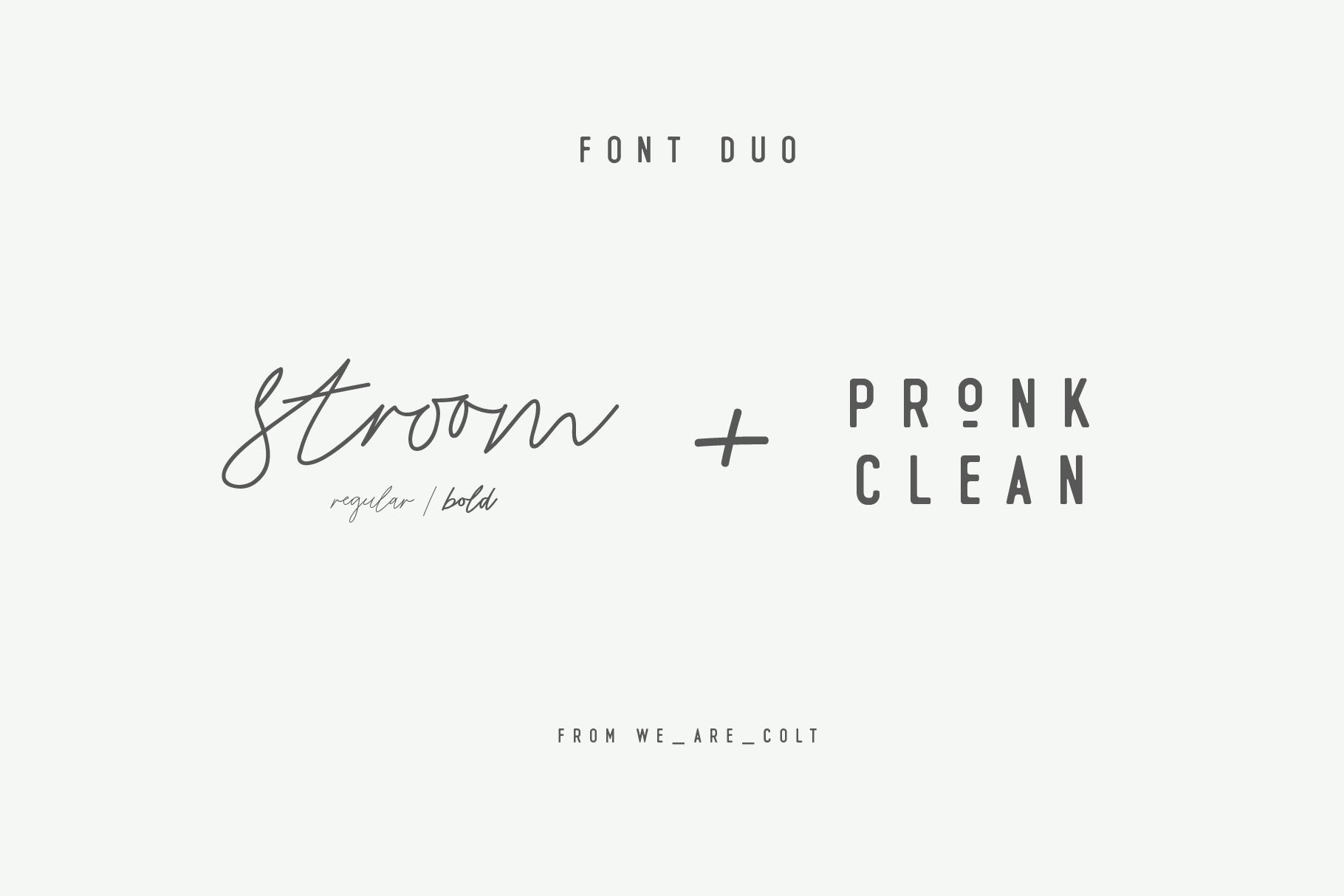
Stroom & Pronk Font Duo
Introducing the Stroom & Pronk font duo The perfect combination of flowing script and a tall, bold display font.
This is an all caps, tall, bold and round sans serif display font designed for retro-modern designs. This font is perfect for your next logo design or magazine titles.
Taking inspiration from many tall fonts and American number plates I created a display font that would be my 'go-to' for a neat tall, bold font. I also wanted something which would take a good amount of treatment like stamp effects and grunge.
Pronk works brilliantly as a pegboard font and for neon lettering.
Stroom was created from a natural handwritten script which makes for a great display font with a natural flow. Complete with hand-drawn glyphs and custom linked letters for a unique marker pen look. This is your perfect font for magazine titling, logo marks, signatures, invitations, cards, Instagram posts, and product packaging.
This set includes uppercase and lowercase letters, numerals, a range of punctuation and ligatures. All lowercase letters include beginning and ending swashes. All uppercase letters include beginning swashes which allow you to create an even more authentic custom-feel text.
When paired with Pronk, this font adds a really unique and elegant finish to your project.